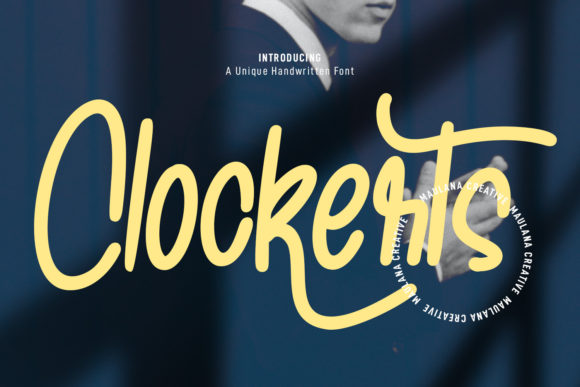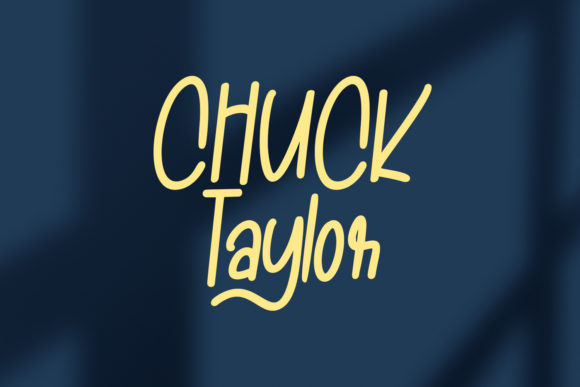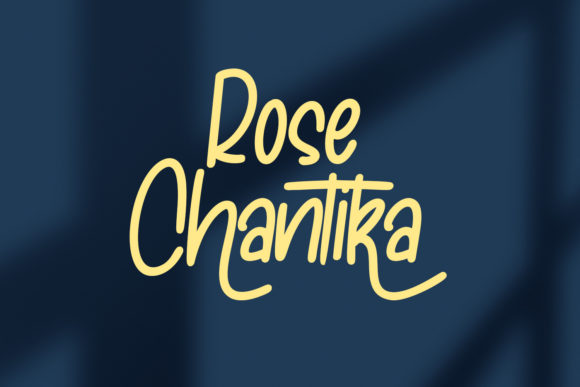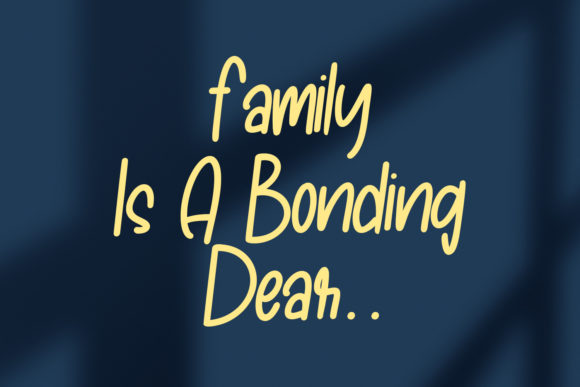
Clockerts Font
About Clockerts Font
Clockerts is a fancy, casual, and modern script font with a clean mono-line stroke, fun characters, ligatures, and alternates. This font gives you extra creative work. This font is good for logo design, Social media, Movie Titles, Books Titles, short text, even long text. Make stunning work with Clockerts!